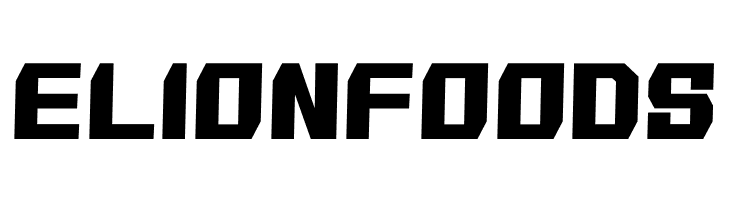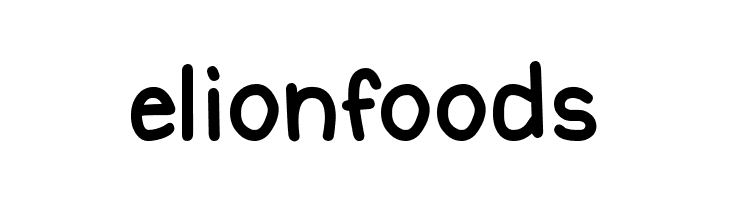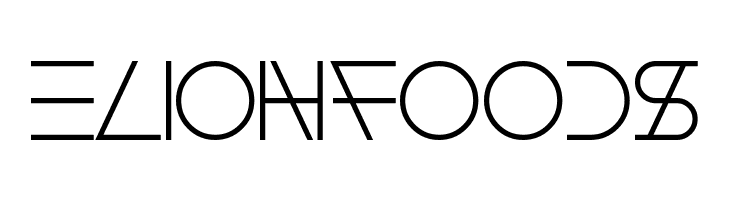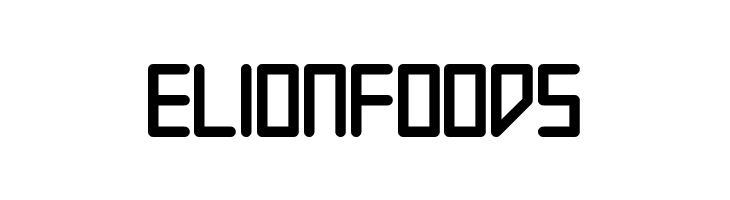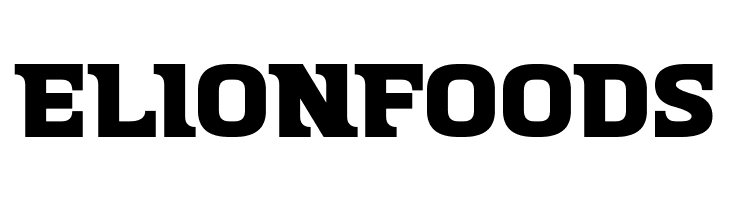
A bold, angular font with a futuristic, geometric design.
A pictogram and icon-based decorative font themed around surveillance and security.
A decorative font with thorn-like, jagged edges for a wild and dramatic look.
A bold, gothic font with dripping, textured elements and a blackletter style.
An eerie, irregular font with elongated letterforms, perfect for horror themes.
A playful, rounded font with smooth curves and a friendly appearance.
A modern, geometric font with clean lines and angular shapes.
A bold, modern font with strong, thick strokes and a blocky appearance.